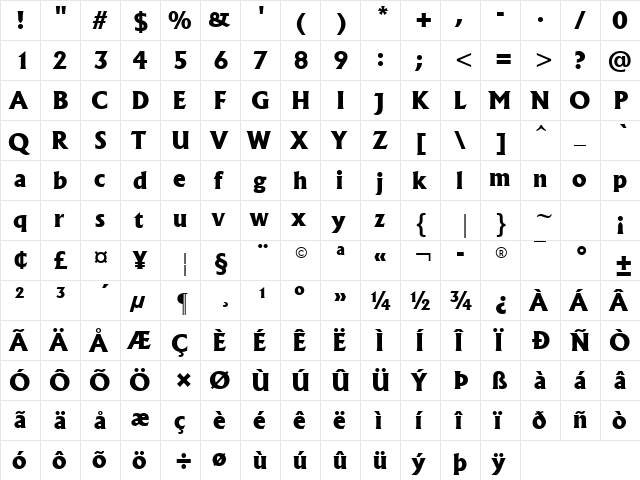
Albertus Extra Bold (W1) Regular Font Preview
Albertus Extra Bold (W1) Regular
Albertus Extra Bold (W1) Regular Font Details
Design Context for Albertus Extra Bold (W1) Typeface
Albertus Extra Bold (W1) offers clean, dependable letterforms without strong stylistic allegiance, making it a practical choice for designers who need flexibility. The heavy weight commands attention and anchors typographic hierarchies.